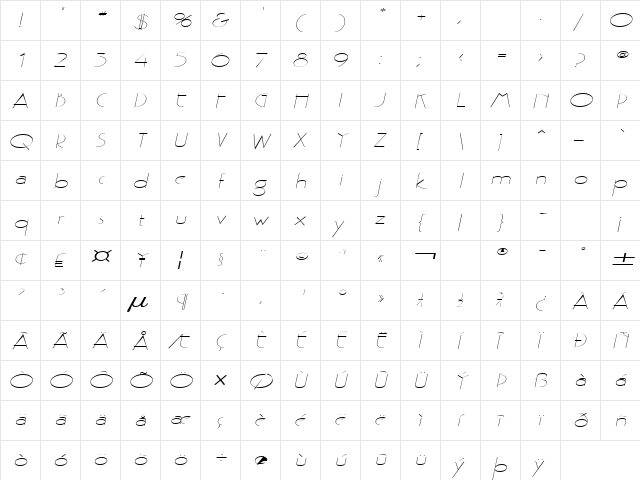
Gaston Extended Italic
Design Context for Gaston Extended Typeface
Gaston Extended is a composed and adaptable typeface that performs quietly and consistently across a wide range of design contexts. The slanted form adds forward momentum and visual energy.
Pro Tip: Try Gaston Extended for annotation and caption copy alongside an upright companion — the contrast in angle creates a dynamic but ordered typographic system.